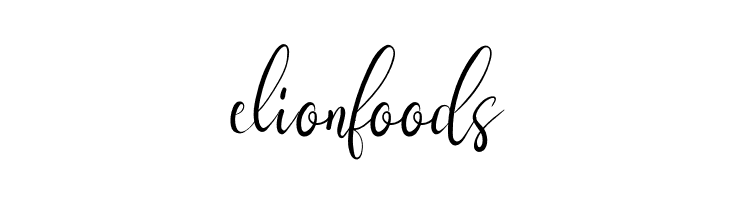
An elegant script font with flowing, interconnected letters and artistic flourishes.
A modern, elegant handwritten script with high contrast and fluid strokes.